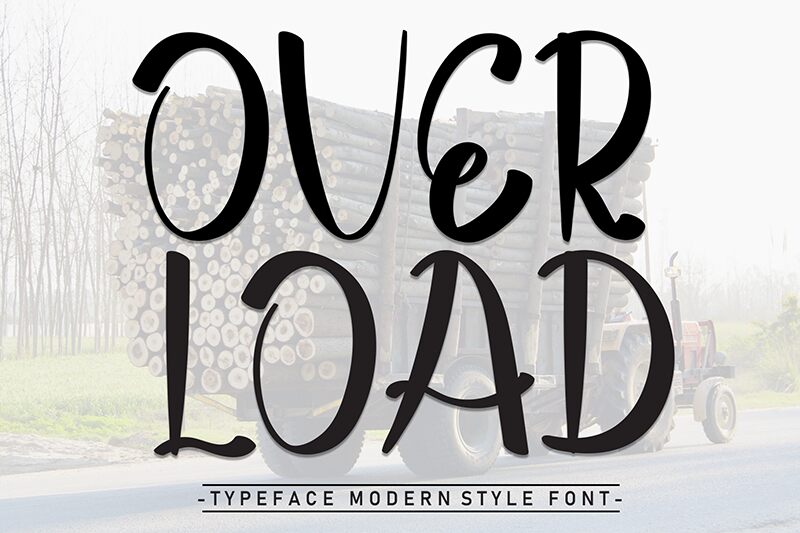
Over Load
Over Load font by Andi Moz is an expressive brush text with sharp elements. It displays an artistic design that combines both classic and futuristic styles. It uses long curvy lines to present an elegant look that’s easy on the eye and visually pleasant.